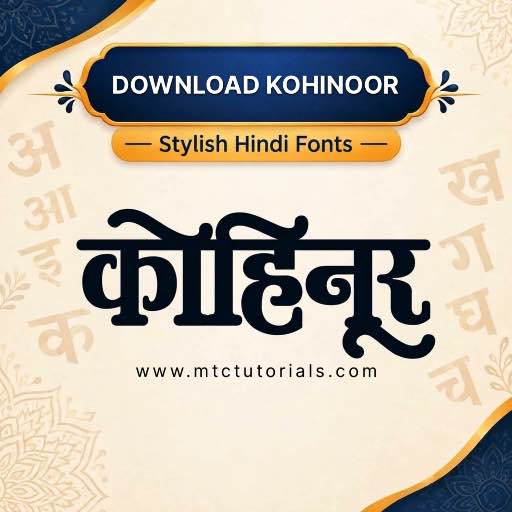
Kohinoor Font Free Download
Kohinoor is a modern sans-serif with a clean, friendly look. Download it free for apps, brands, and presentations.
Give your Hindi text a clean, modern look with the Kohinoor font download. Kohinoor is a friendly sans-serif with smooth, open shapes. As a result, your text looks fresh and stays easy to read.
What Makes Kohinoor Special
First, Kohinoor offers several weights, from light to bold. Next, each weight keeps the same calm, balanced shape. Therefore, you can build a full design set with one font. Also, it supports Devanagari and Latin, so mixed lines look even.
Best Uses
- Business presentations and reports
- Brand posts and website text
- App screens and product videos